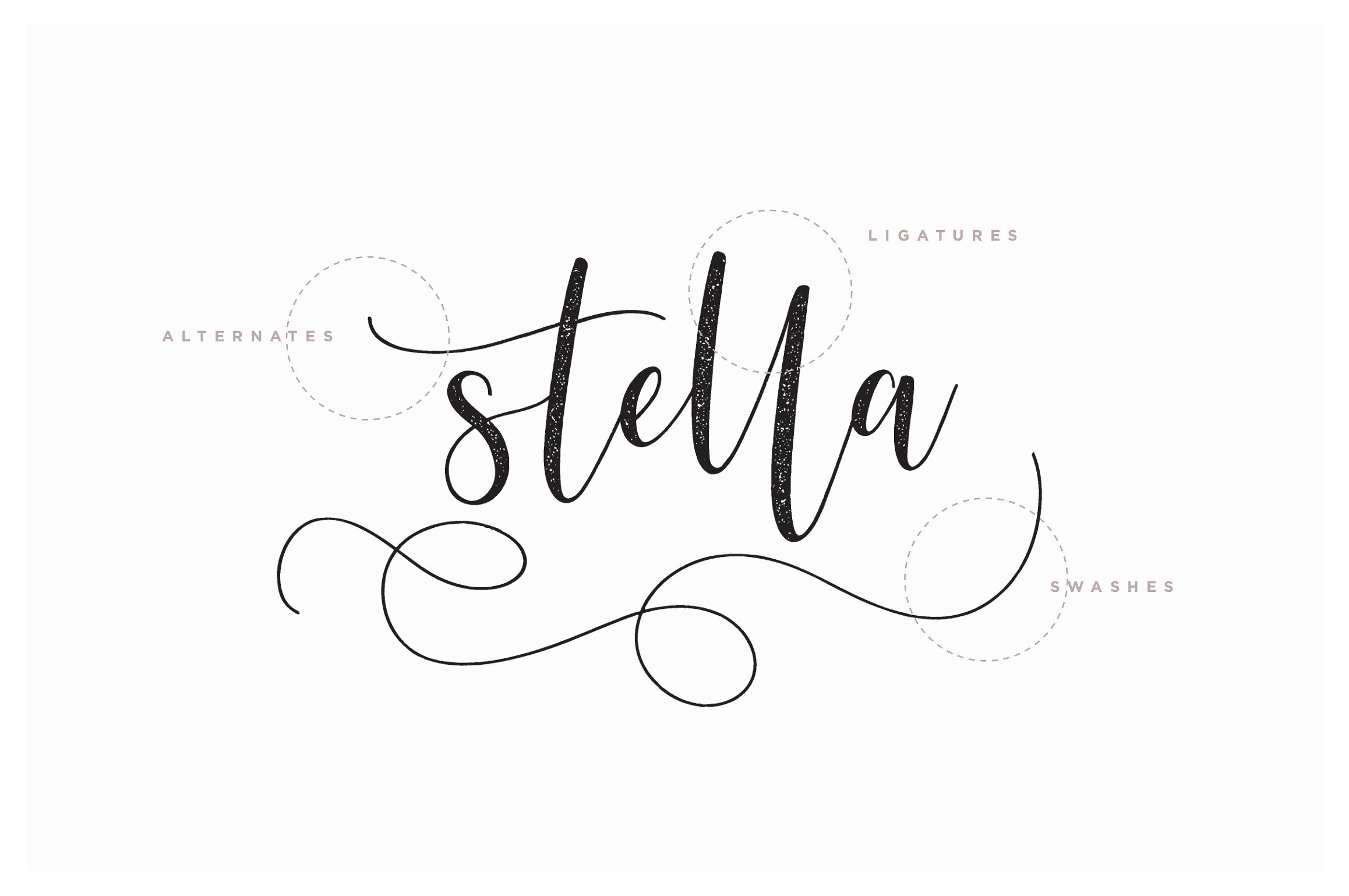
13+ Julietta Script Font Free Download SVG. Julietta was built with opentype features and includes beginning and ending swashes, numbers, punctuation, alternates, ligatures and it also supports other languages 🙂. Julietta font designed and shared by stereotype. Otf, ttf file the editorial at dafont search for the best free fonts available to download from the web. This font is free for personal use only, full version and commercial use: Julietta is a cool script font made from. This font is free for personal use only! But if you want to get a commercial license, it's available at: The full commercial version includes a huge set of 70. Introducing the lovely new julietta script font! Julietta script font julietta is a cool script font made from the lettering work of stéphane lopes. Font, julietta, julietta font, julietta script font, script font. This font is free for personal use only! 278,901 downloads (134 yesterday) free for personal use. We continue our research to find the best fonts that you will. Hello, and thank you for downloading this font.
Julietta Script Font Free Fonts. We continue our research to find the best fonts that you will. This font is free for personal use only, full version and commercial use: This font is free for personal use only! Julietta was built with opentype features and includes beginning and ending swashes, numbers, punctuation, alternates, ligatures and it also supports other languages 🙂. But if you want to get a commercial license, it's available at: Introducing the lovely new julietta script font! Font, julietta, julietta font, julietta script font, script font. The full commercial version includes a huge set of 70. This font is free for personal use only! Julietta script font julietta is a cool script font made from the lettering work of stéphane lopes. 278,901 downloads (134 yesterday) free for personal use. Hello, and thank you for downloading this font. Otf, ttf file the editorial at dafont search for the best free fonts available to download from the web. Julietta is a cool script font made from. Julietta font designed and shared by stereotype.
For commercial use please contact owner. This font is free for personal use only, full version and commercial use: We encourage you to create a free account and login. Julietta messie script font is a beautiful handlettering style brush font by ghuroba studio. Julietta was designed by stephane lopes. Julietta is the perfect font for all your fun designs. However, this is just a sneak peek of julietta messie script font with basic.
Download Free Font Julietta. 278,901 downloads (134 yesterday) free for personal use. Otf, ttf file the editorial at dafont search for the best free fonts available to download from the web. Julietta is a cool script font made from. We continue our research to find the best fonts that you will. Font, julietta, julietta font, julietta script font, script font. The full commercial version includes a huge set of 70. Introducing the lovely new julietta script font! But if you want to get a commercial license, it's available at: Hello, and thank you for downloading this font. Julietta script font julietta is a cool script font made from the lettering work of stéphane lopes. This font is free for personal use only! Julietta font designed and shared by stereotype. This font is free for personal use only, full version and commercial use: This font is free for personal use only! Julietta was built with opentype features and includes beginning and ending swashes, numbers, punctuation, alternates, ligatures and it also supports other languages 🙂.
Julietta Script Font Free Dafont Free. The full commercial version includes a huge set of 70. This font is free for personal use only, full version and commercial use: Font, julietta, julietta font, julietta script font, script font. Julietta was built with opentype features and includes beginning and ending swashes, numbers, punctuation, alternates, ligatures and it also supports other languages 🙂. But if you want to get a commercial license, it's available at: This font is free for personal use only! We continue our research to find the best fonts that you will. Julietta script font julietta is a cool script font made from the lettering work of stéphane lopes. Introducing the lovely new julietta script font! Hello, and thank you for downloading this font. Julietta font designed and shared by stereotype. This font is free for personal use only! 278,901 downloads (134 yesterday) free for personal use. Otf, ttf file the editorial at dafont search for the best free fonts available to download from the web. Julietta is a cool script font made from.
Julietta Script Font Stunning Script Fonts Creative Market. The full commercial version includes a huge set of 70. Otf, ttf file the editorial at dafont search for the best free fonts available to download from the web. Font, julietta, julietta font, julietta script font, script font. We continue our research to find the best fonts that you will. This font is free for personal use only! 278,901 downloads (134 yesterday) free for personal use. Introducing the lovely new julietta script font! Julietta font designed and shared by stereotype. Julietta was built with opentype features and includes beginning and ending swashes, numbers, punctuation, alternates, ligatures and it also supports other languages 🙂. Julietta script font julietta is a cool script font made from the lettering work of stéphane lopes. But if you want to get a commercial license, it's available at: This font is free for personal use only! This font is free for personal use only, full version and commercial use: Hello, and thank you for downloading this font. Julietta is a cool script font made from.
Julietta Script Font Free Download Free Font Download. This font is free for personal use only! Julietta script font julietta is a cool script font made from the lettering work of stéphane lopes. We continue our research to find the best fonts that you will. Julietta was built with opentype features and includes beginning and ending swashes, numbers, punctuation, alternates, ligatures and it also supports other languages 🙂. But if you want to get a commercial license, it's available at: Font, julietta, julietta font, julietta script font, script font. Julietta font designed and shared by stereotype. Introducing the lovely new julietta script font! Julietta is a cool script font made from. 278,901 downloads (134 yesterday) free for personal use. This font is free for personal use only, full version and commercial use: This font is free for personal use only! The full commercial version includes a huge set of 70. Otf, ttf file the editorial at dafont search for the best free fonts available to download from the web. Hello, and thank you for downloading this font.
Julietta Script Font Free Dafont Free. Font, julietta, julietta font, julietta script font, script font. This font is free for personal use only, full version and commercial use: We continue our research to find the best fonts that you will. This font is free for personal use only! Julietta was built with opentype features and includes beginning and ending swashes, numbers, punctuation, alternates, ligatures and it also supports other languages 🙂. The full commercial version includes a huge set of 70. Julietta font designed and shared by stereotype. Otf, ttf file the editorial at dafont search for the best free fonts available to download from the web. This font is free for personal use only! Julietta script font julietta is a cool script font made from the lettering work of stéphane lopes. Julietta is a cool script font made from. Hello, and thank you for downloading this font. But if you want to get a commercial license, it's available at: Introducing the lovely new julietta script font! 278,901 downloads (134 yesterday) free for personal use.
Julietta Script Font Free Dafont Free. Introducing the lovely new julietta script font! This font is free for personal use only, full version and commercial use: This font is free for personal use only! Julietta font designed and shared by stereotype. Font, julietta, julietta font, julietta script font, script font. Hello, and thank you for downloading this font. This font is free for personal use only! Otf, ttf file the editorial at dafont search for the best free fonts available to download from the web. But if you want to get a commercial license, it's available at: Julietta was built with opentype features and includes beginning and ending swashes, numbers, punctuation, alternates, ligatures and it also supports other languages 🙂. We continue our research to find the best fonts that you will. Julietta is a cool script font made from. Julietta script font julietta is a cool script font made from the lettering work of stéphane lopes. 278,901 downloads (134 yesterday) free for personal use. The full commercial version includes a huge set of 70.
The author works at company clement nicolle stereotype. Julietta signature font julietta signature is a special font that is perfect for anything that requires a please login to your account to leave comments. 278,901 downloads (134 yesterday) free for personal use. Dowonload this fonts for graphic design , web fonts. Although we try our best but sometimes content here on this site might infringe. Julietta messie script font is a beautiful handlettering style brush font by ghuroba studio. But if you want to get a commercial license, it's available at: Otf, ttf file the editorial at dafont search for the best free fonts available to download from the web. The full commercial version includes a huge set of 70 alternates, contextual ligatures and underlining. Julietta is a script font based on my brushpen lettering style and developped by clément nicolle.